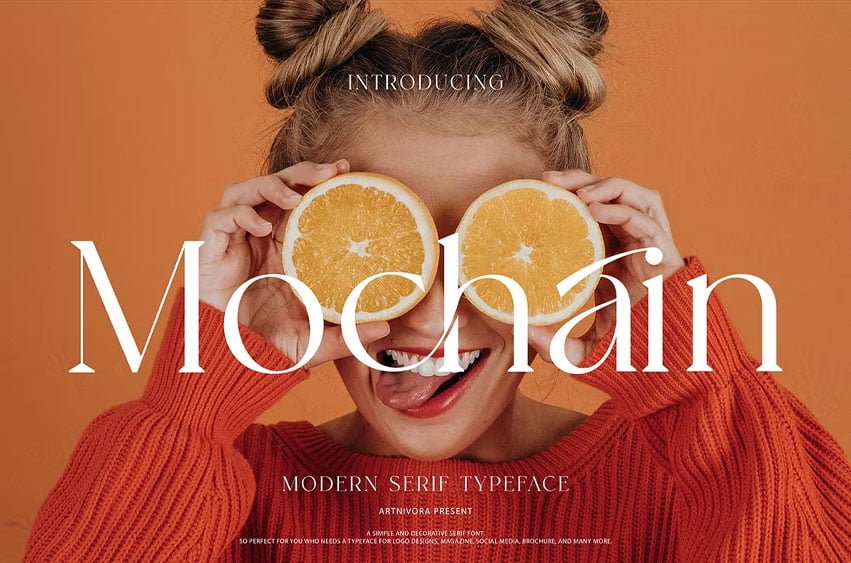
Mochain Font
Mochain Font is a simple and serif font. So perfect for you who needs a typeface for logo designs, magazine, social media, brochure, and many more.